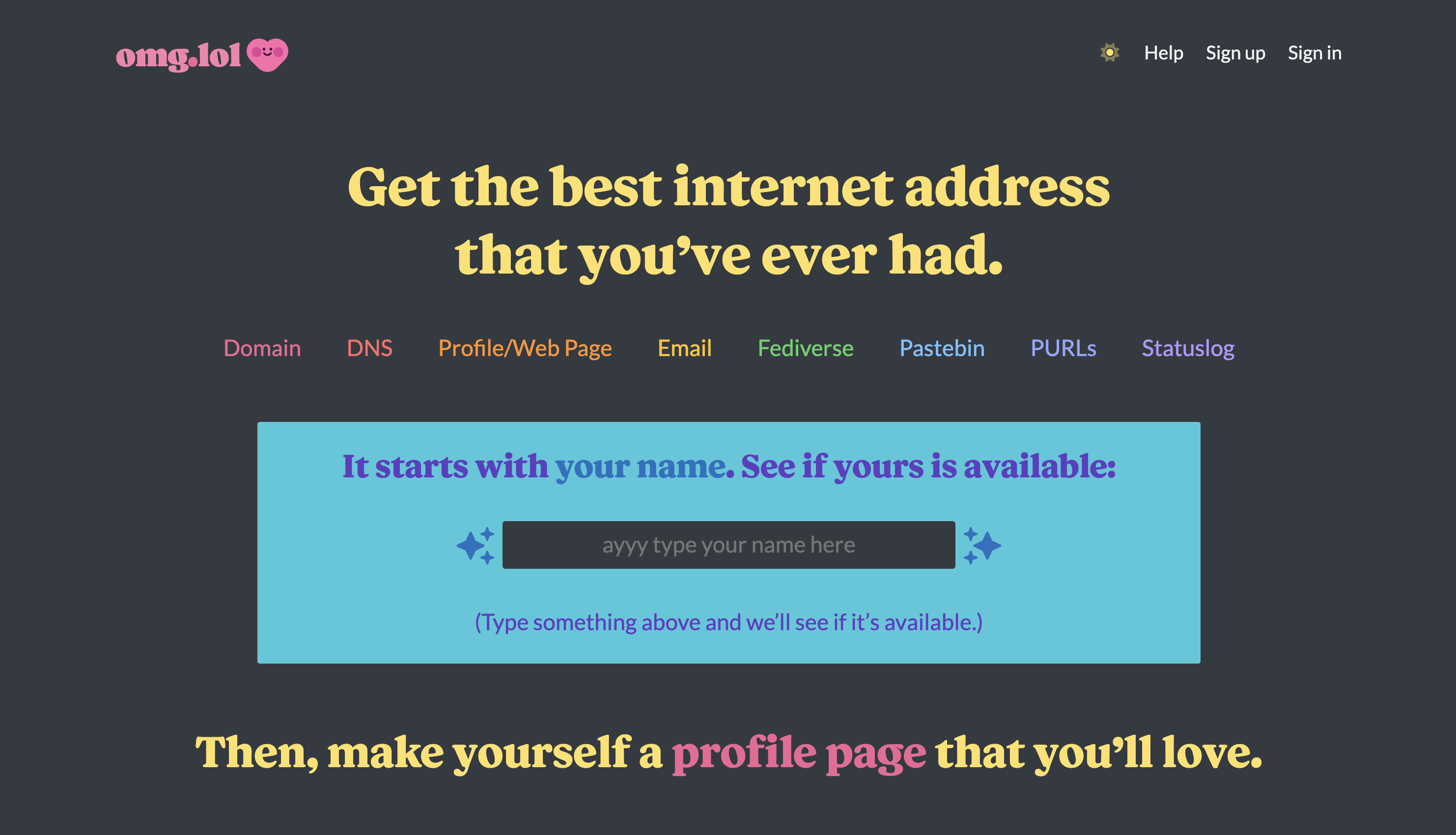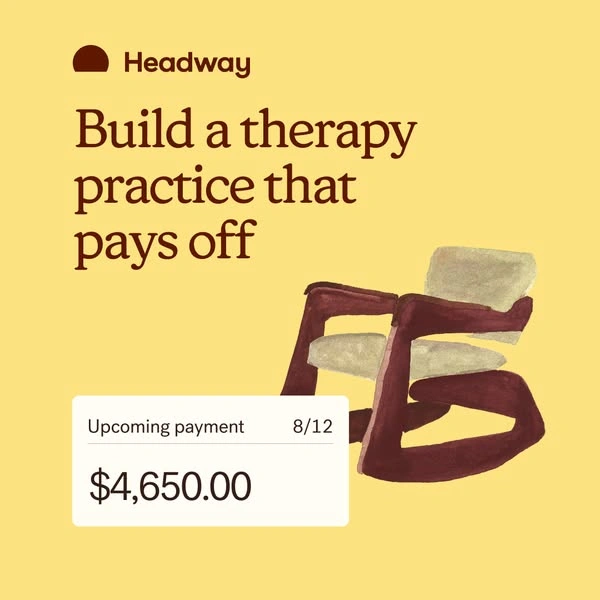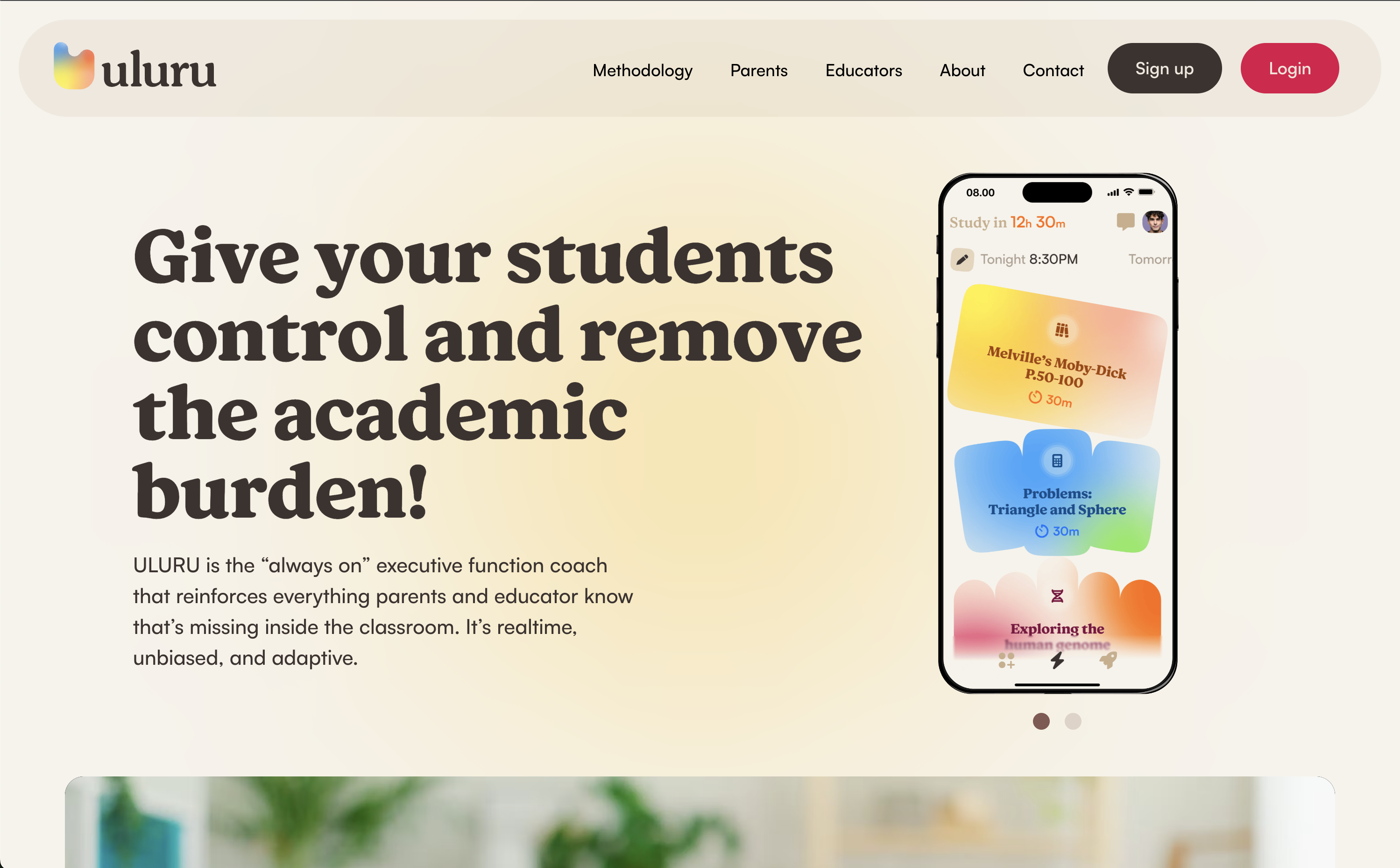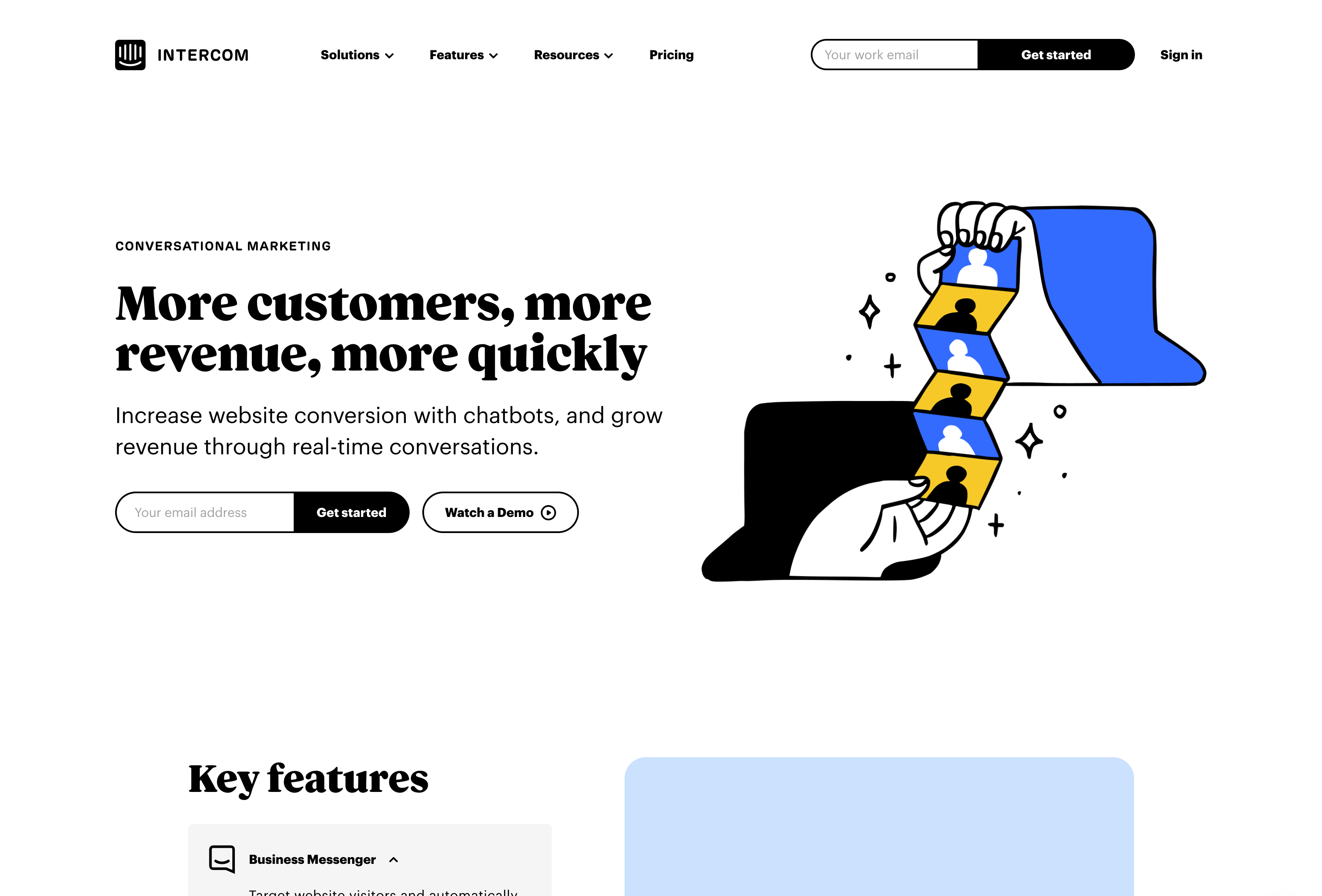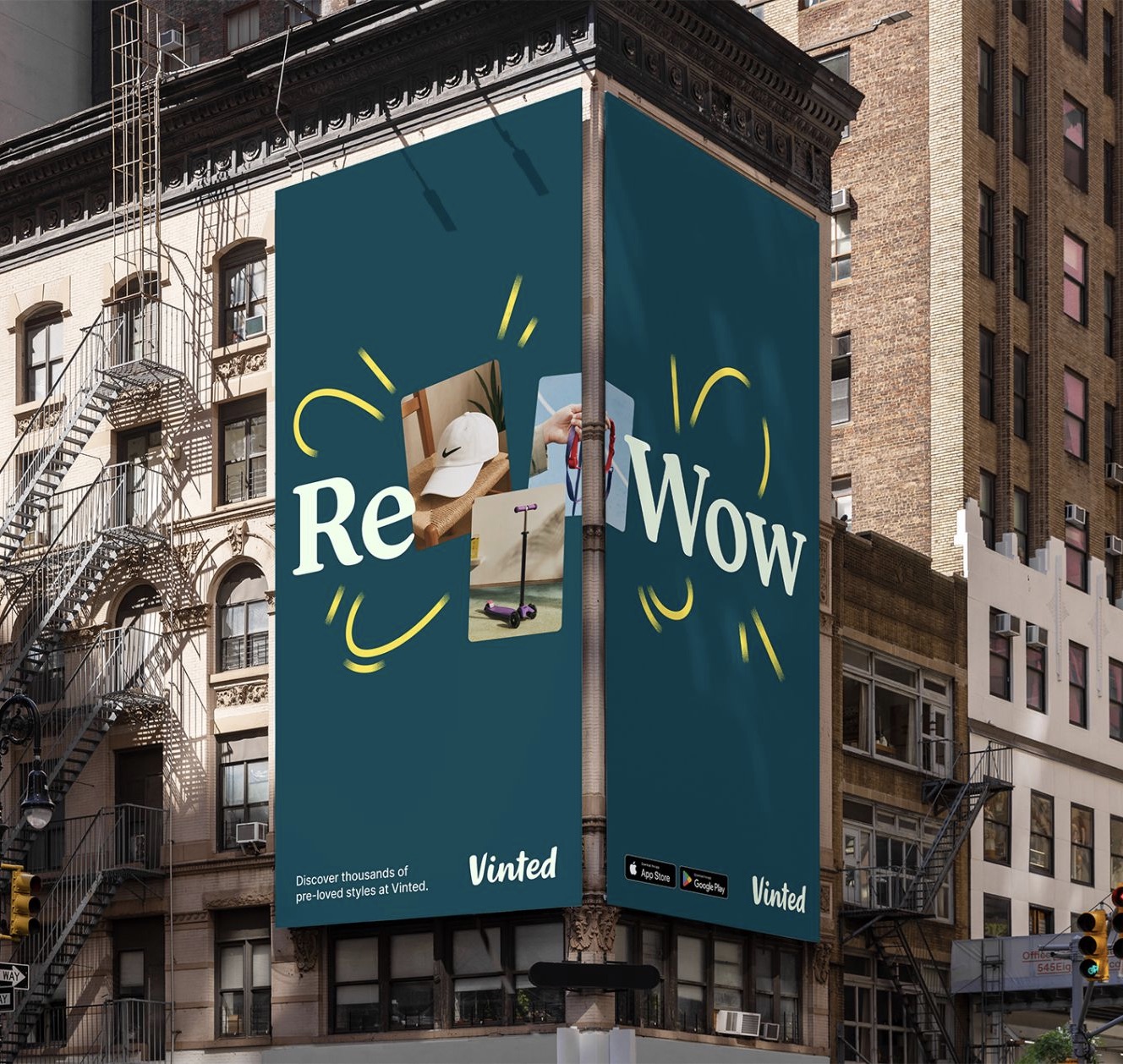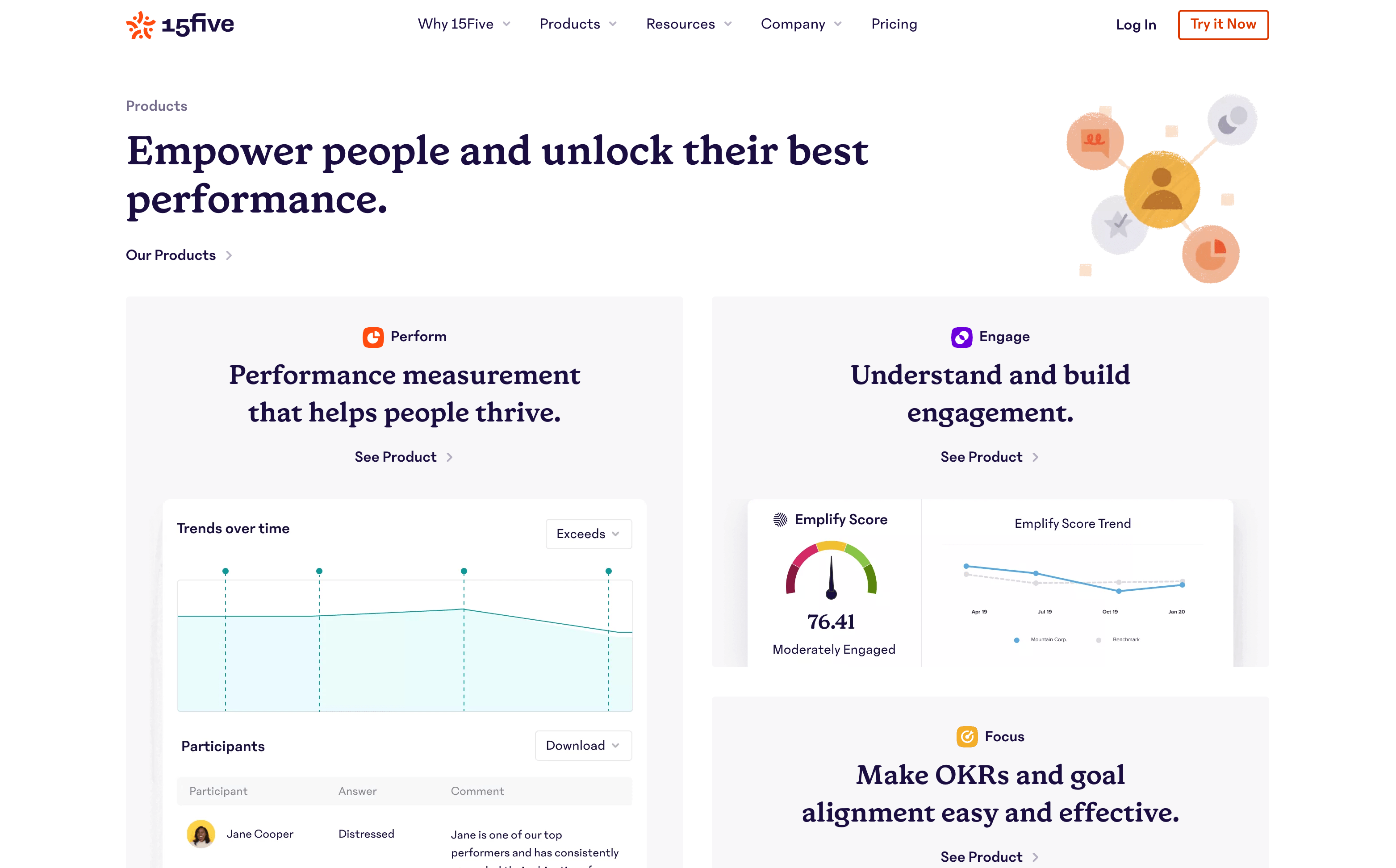
Honey
As its name implies, Honey is a natural sweetener with the historicity of soft serifs like Souvenir or ITC Grouch, but with more sternness, more glycemic stability than say ol “corn syrup” Cooper might have.
ss01
Fancy Q
Quickly
ss02
Two story g
Goggles
frac
Fractions
12/34
liga
Ligatures
Co. St.
onum
Oldstyle figures
1234567